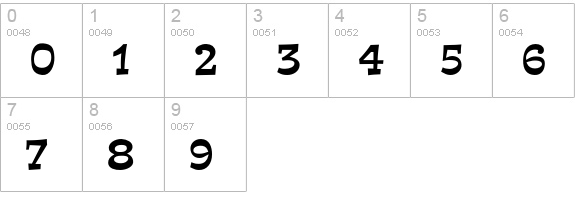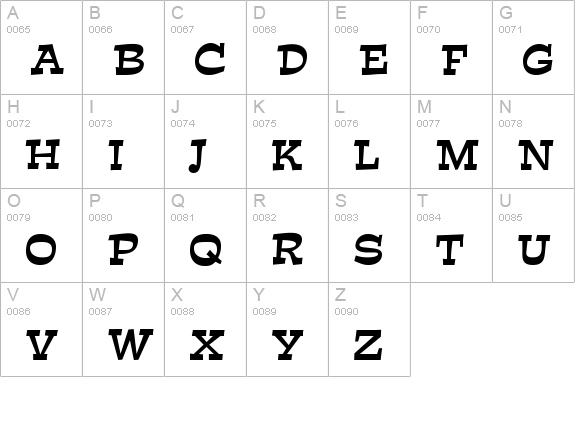
EstroFont Font Details
Introducing EstroFont, a sleek and modern typeface that exudes elegance and sophistication. This versatile font is perfect for a wide range of design projects, from branding to editorial design. With its clean lines and stylish curves, EstroFont adds a touch of class to any design. The best part? EstroFont is completely free to download at FontsMarket.com. Whether you're a seasoned designer or just starting out, this font is sure to elevate your work to the next level. Don't miss out on the opportunity to add this stunning font to your collection today. Download EstroFont now and unleash your creativity like never before.